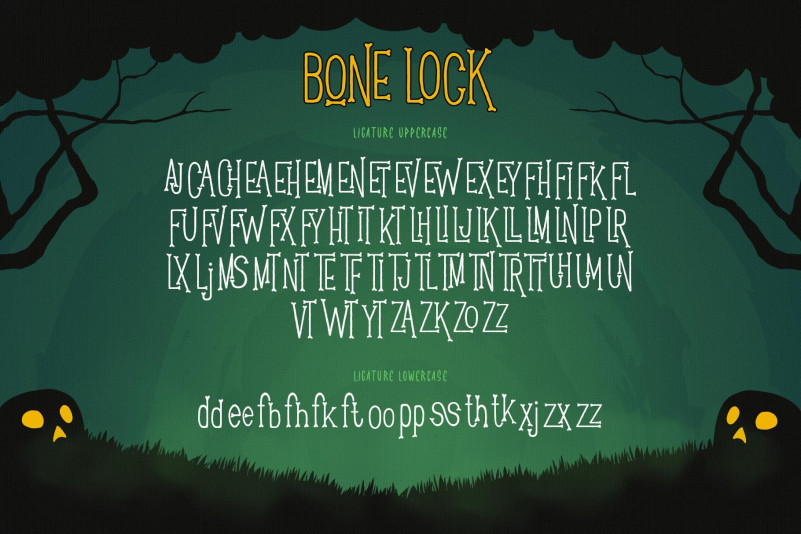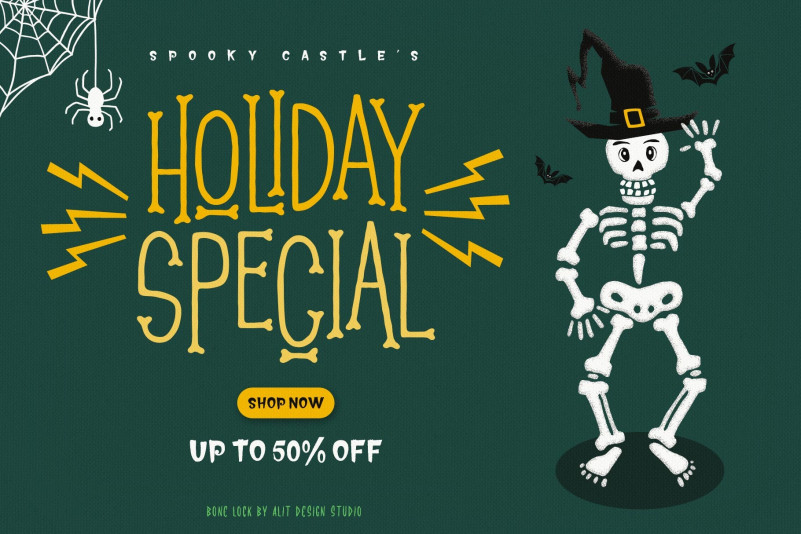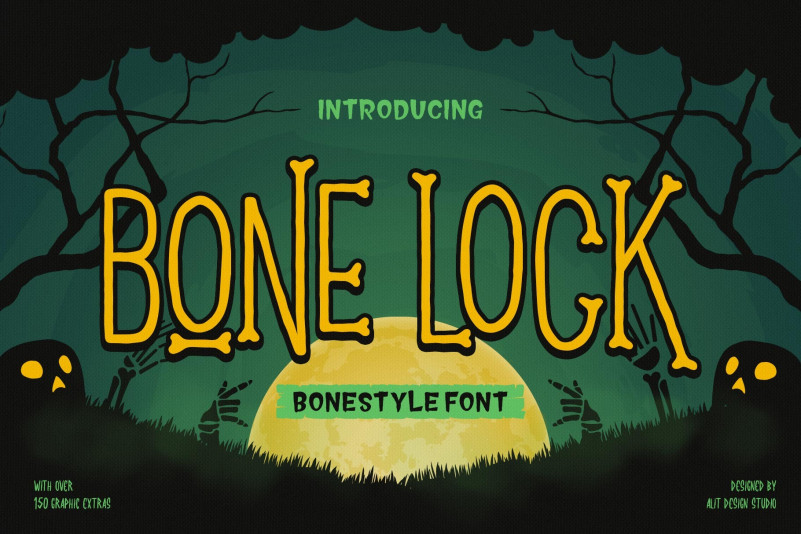
Bone Lock Display Font
Bone Lock Display Font is designed for the needs of design concepts themed about Halloween and events in October and November. The Bone Lock Halloween Typeface has a horror character with a bone shaped style, making the horror Halloween themed design concept even better and unique.
The Bone Lock Halloween Typeface also gets a bonus character of 150 Halloween-themed illustrations that make creating designs even easier. Simply by downloading The Zukones Halloween Typeface, creating a Halloween themed design is very quick and easy.
The Bone Lock Halloween Typeface is perfect for magazine cover designs, brochures, flyers. Instagram ads, Canva Design and so on with halloween and dark concepts. besides that this font is very easy to use both in design and non-design programs because everything changes and glyphs are supported by Unicode (PUA).
The Bone Lock Halloween Typeface contains 610 + 150 bonus glyphs with many unique and interesting alternative options.